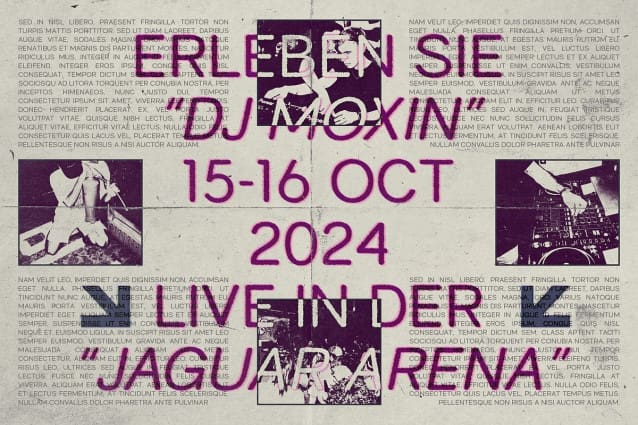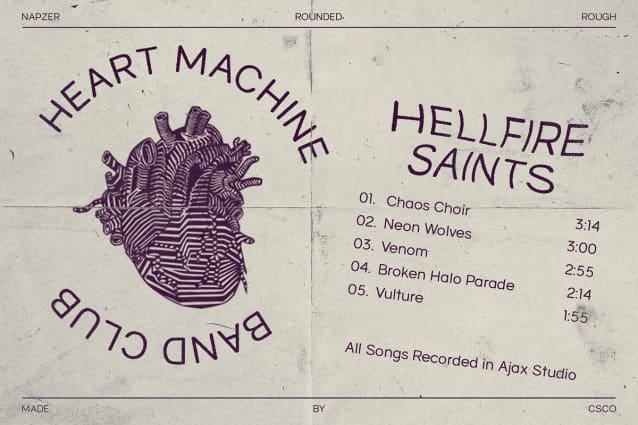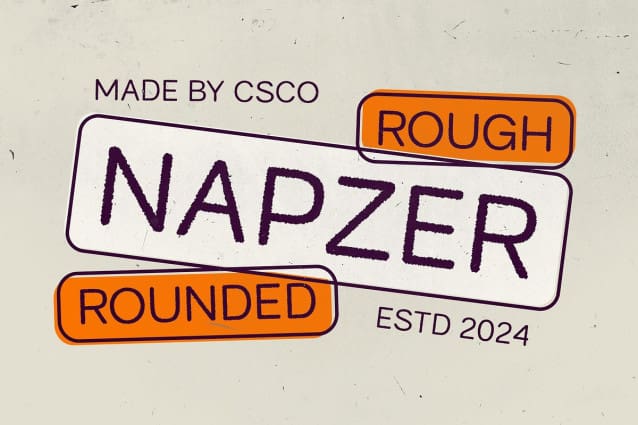
Napzer Rounded Rough Font
Napzer Rounded Rough Font: Modern Geometric Meets Raw Edge. Modern Sans Serif Font with Rounded Shapes and Rough Texture This a modern sans serif font that fuses geometric precision with rounded forms and a distinct rough texture. This unique combination offers a contemporary look with a bold, handcrafted edge, making it the ideal choice for projects that require both sleek design and a touch of rugged charm.
Geometric Shapes with Soft, Rounded Forms The font’s geometric design, softened by rounded edges, provides a clean and approachable aesthetic. These smooth curves create a friendly and inviting impression, while still maintaining a modern and professional look. Whether for branding, packaging, or editorial designs, this rounded rough font adds a fresh, polished feel that’s easy on the eyes and highly adaptable.
Rough Texture for Added Boldness What sets this rounded rough font apart is its subtle yet impactful rough texture. This raw element infuses the font with a bold, handcrafted quality, giving your projects a distinctive edge. The texture adds depth and character, perfect for designs that aim to stand out, such as posters, logos, and digital media, where uniqueness and bold visuals are key.